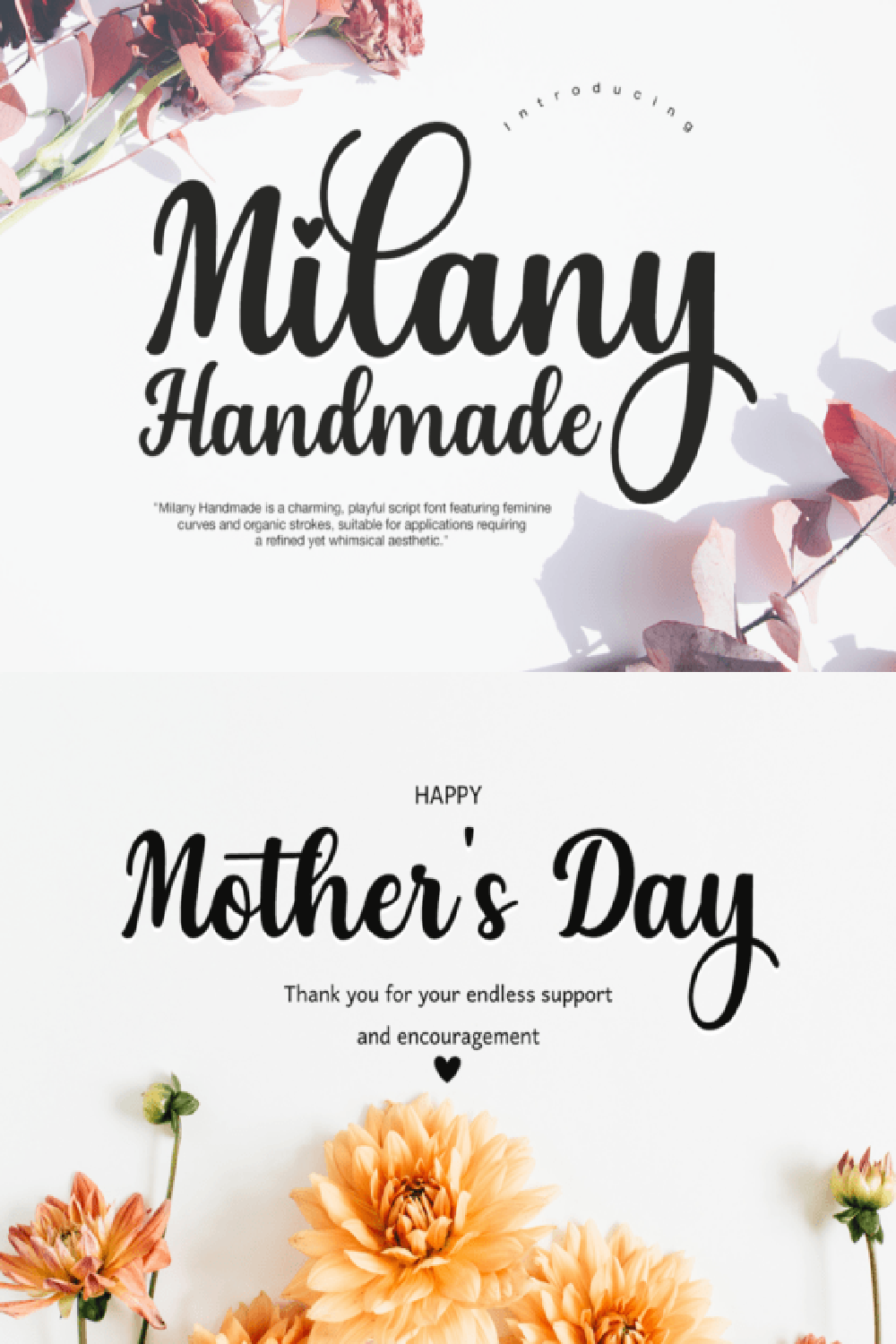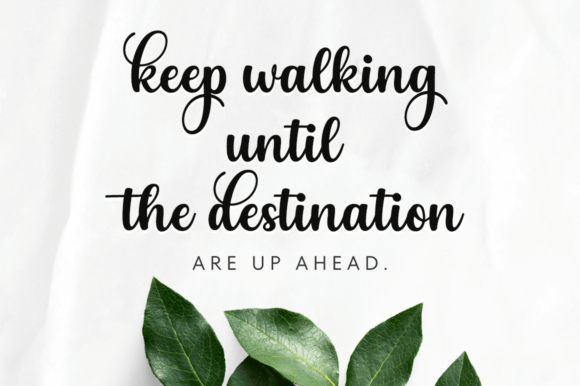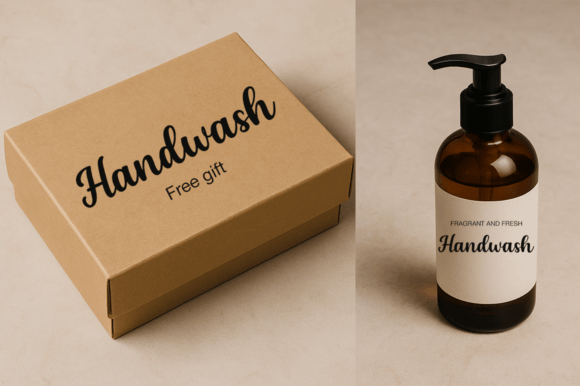
About the Milany Handmade Font
Presenting Milany Handmade Font, a unique and stylish typeface that will make your work stand out. Experience the irresistible charm of Milany Handmade, a lighthearted script font possessing all the allure of delicate feminine lines. Discover the harmony of its organic strokes, graciously leading from one letter to the next with a playful finesse. Enchantingly elegant yet filled with whimsy, Milany Handmade is the perfect match for projects that aim for a wild sense of refinement.
Milany Handmade thrives in applications requiring a touch of delicate elegance, such as wedding invitations, greeting cards, or product packaging for cosmetics or luxury goods. Its playful nature also lends itself well to short headlines or quotes in marketing materials. However, its highly decorative style is unsuitable for body text or UI elements where readability is paramount; long passages set in Milany Handmade would be difficult to read.
Pairing Milany Handmade with a clean sans-serif like Montserrat for body copy provides excellent contrast and enhances readability. For a more modern feel, consider pairing it with a geometric sans-serif such as Roboto. Alternatively, a classic serif like Playfair Display could add a touch of timeless sophistication.
Milany Handmade’s overall personality is best described as charming and whimsical, yet sophisticated. Its organic forms and delicate strokes convey a sense of handcrafted artistry and lighthearted elegance.